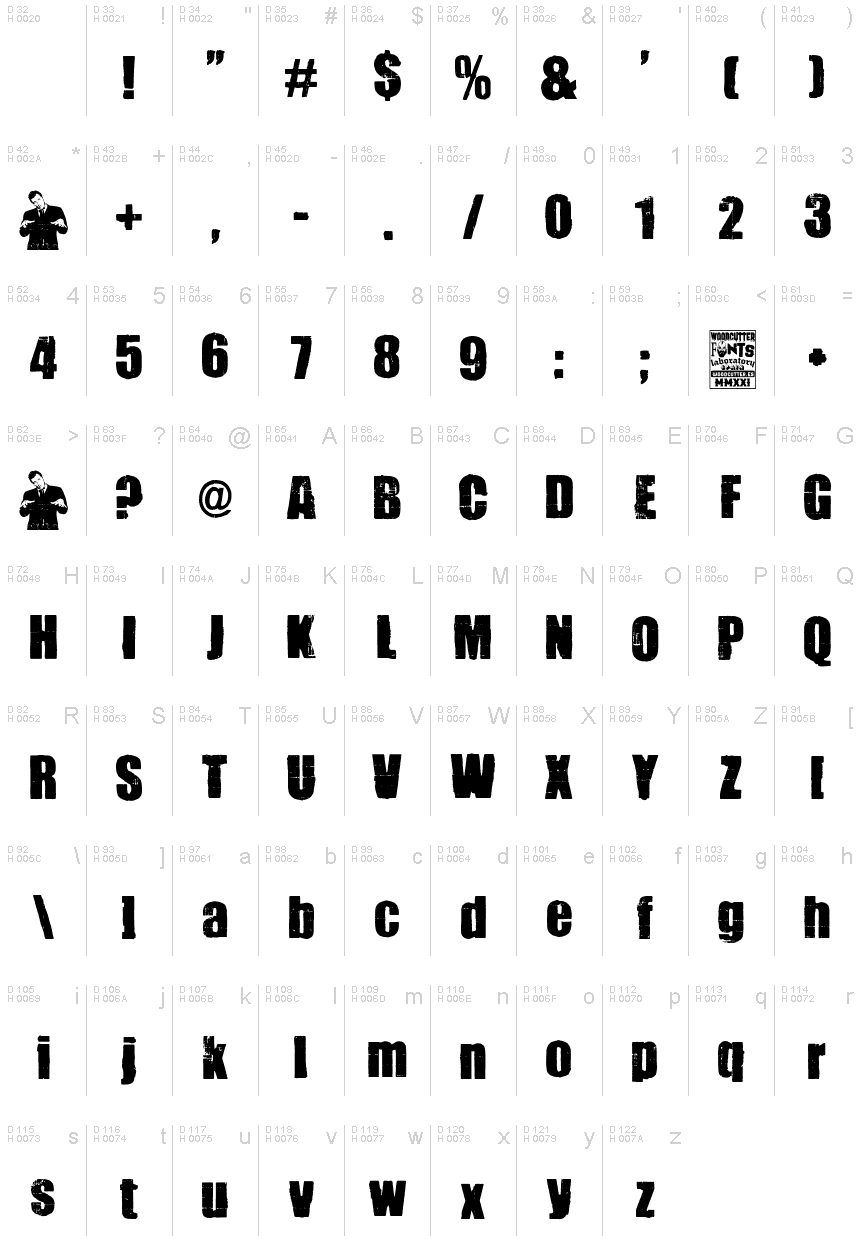
The Night Of The Hunter
The Night Of The Hunter by Woodcutter Manero is a bold, eroded display font with a narrow width. It's perfect for projects that need an eye-catching and unique look, from edgy designs to logos and posters.